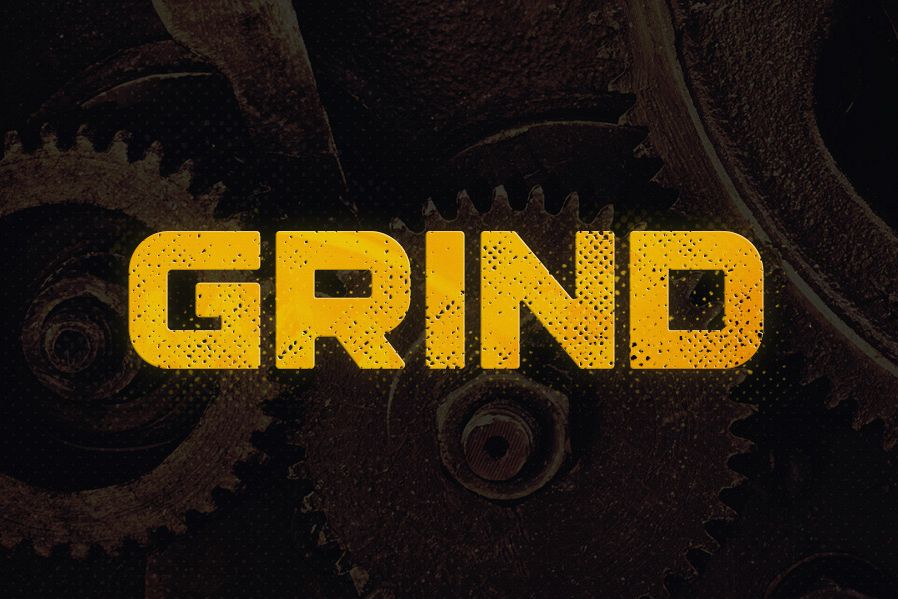
Grind Typeface
Grind Simple
Grind Demolished
Grind Timber
Grind Halftone
Grind features simple, demolished, halftone and timber styles. It also comes with multilingual support and includes letters, numbers and punctuation. Let me know if you have any questions!